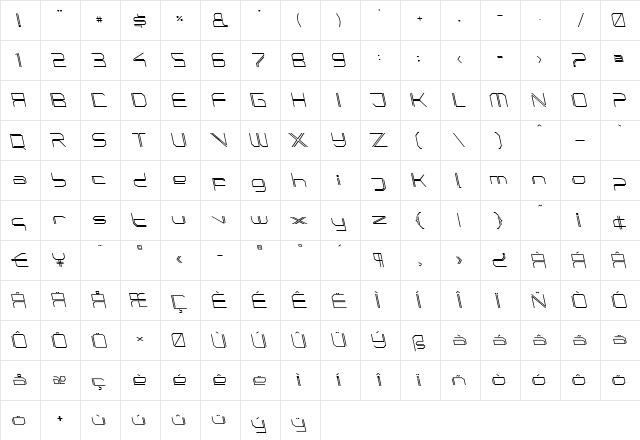
PhutureSqrdOpen Italic
Design Context for PhutureSqrdOpen Typeface
PhutureSqrdOpen is a composed and adaptable typeface that performs quietly and consistently across a wide range of design contexts. The dynamic lean of this cut emphasises speed and emphasis in any layout.
Pro Tip: Try PhutureSqrdOpen for annotation and caption copy alongside an upright companion — the contrast in angle creates a dynamic but ordered typographic system.